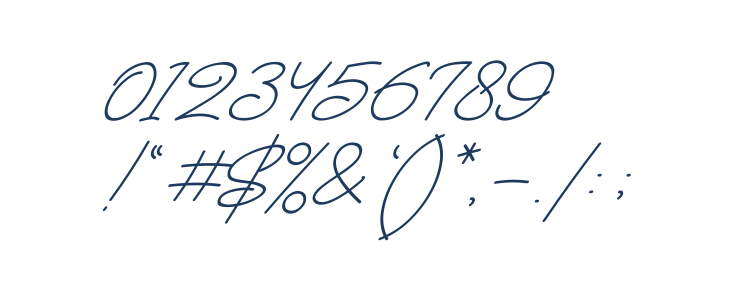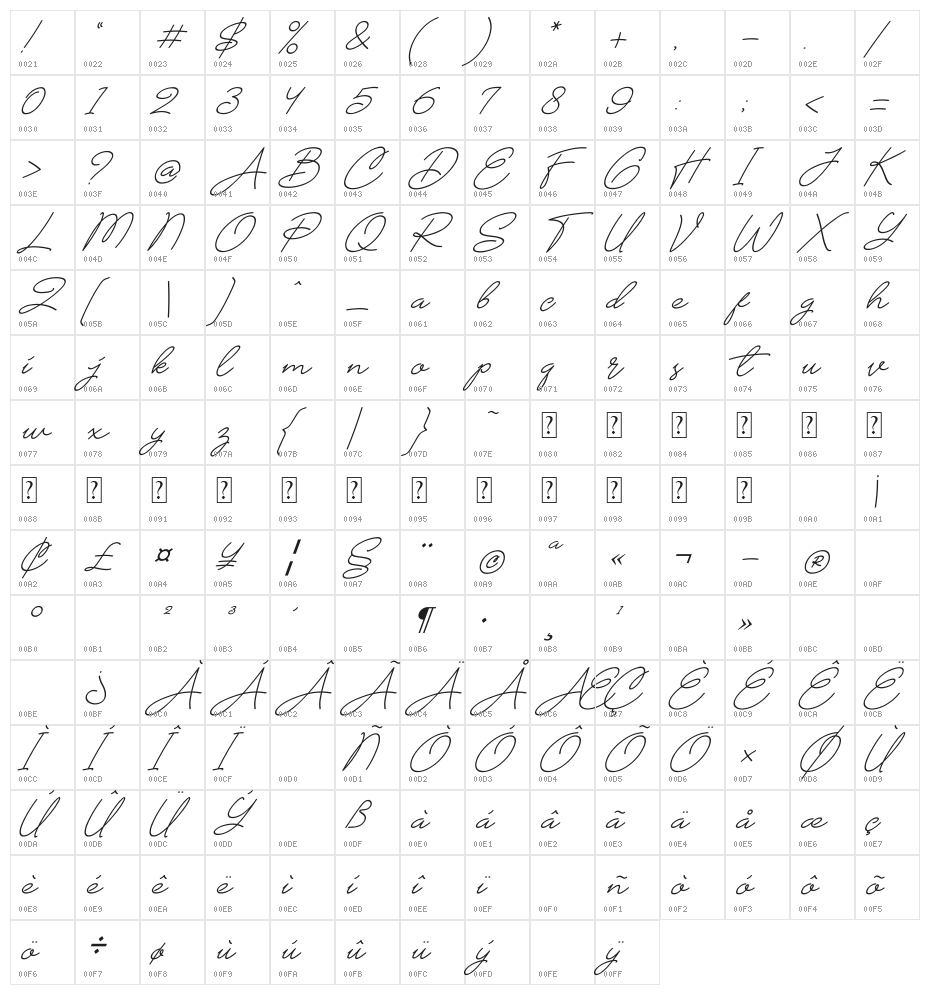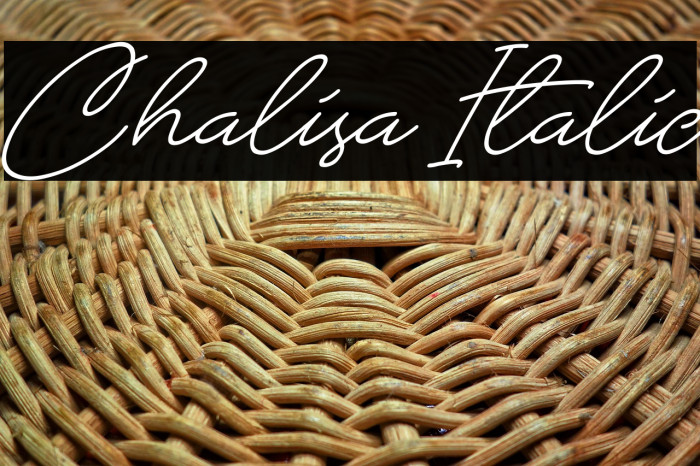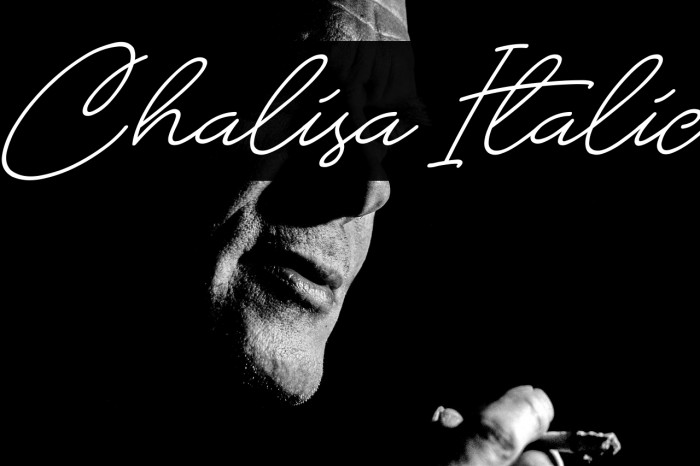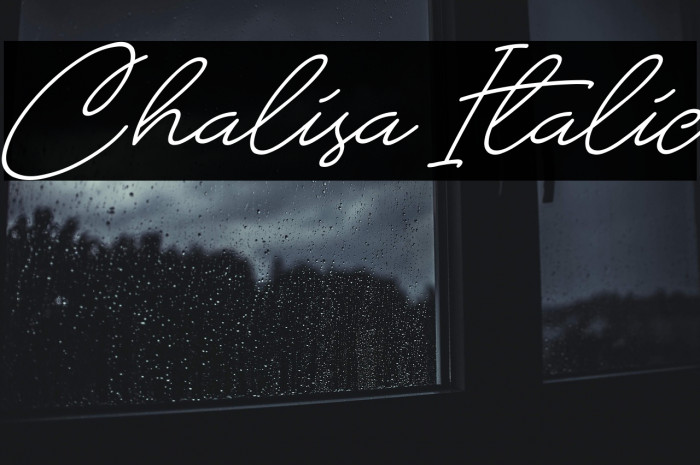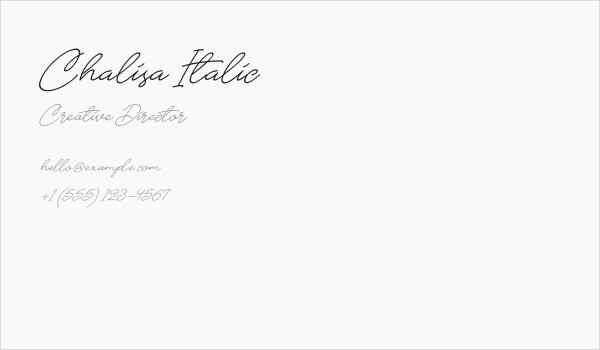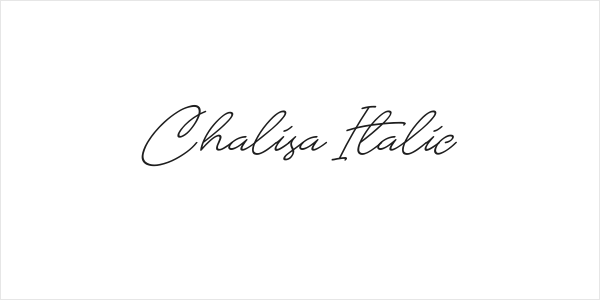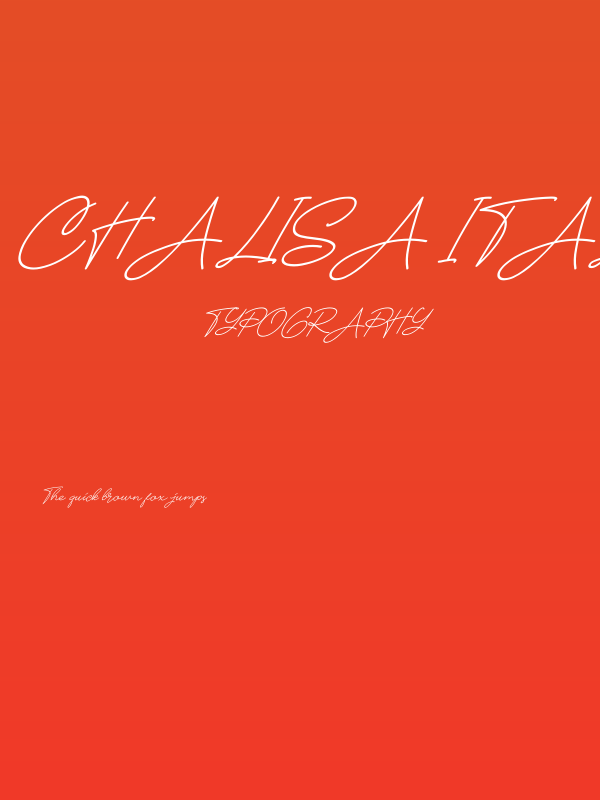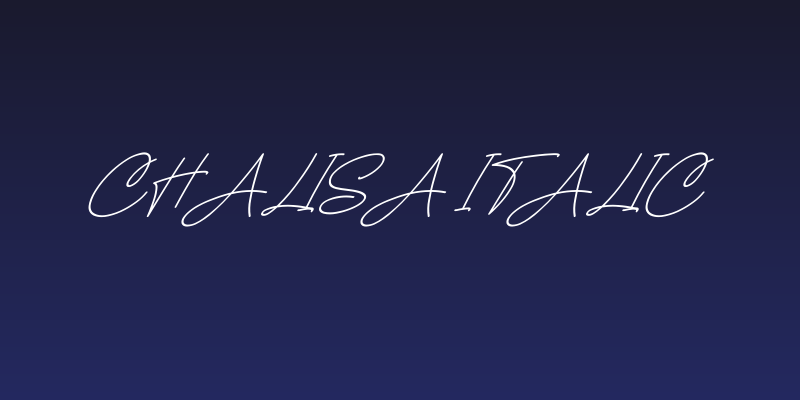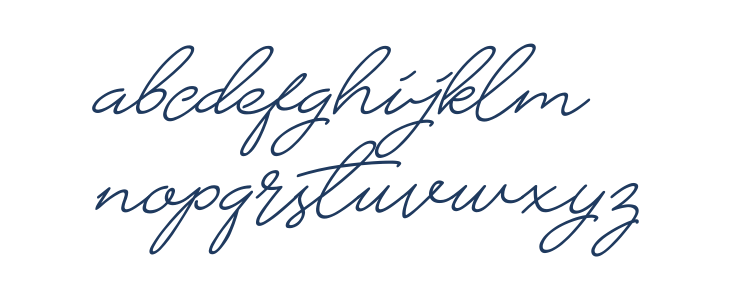
Chalisa Italic Font
Chalisa Italic Description
This elegant script font features a flowing, cursive style that mimics the fluidity of handwriting. The characters are connected, with each letter seamlessly transitioning into the next, creating a harmonious and continuous line. The uppercase letters are slightly more ornate, with graceful loops and swirls, while the lowercase letters maintain a consistent slant and smooth curves. The numerals are distinct yet complementary to the alphabet, maintaining the same slanted, cursive style. Special characters are thoughtfully designed to match the overall aesthetic, ensuring a cohesive look across all text. This font exudes sophistication and charm, making it ideal for projects that require a personal touch.
| Overall Style | Elegant, Handwritten |
| Proposed Projects | Ideal for wedding invitations, greeting cards, personal branding, and elegant logos. |